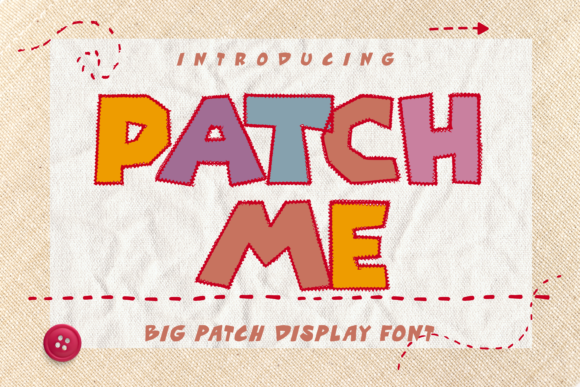
Step into a world of visual delight with Patch Me Font, a captivating display font that breathes life into your creative projects. Crafted by the ingenious Rasa, Patch Me is not just a font; it's an explosion of joy, a splash of color, and a dash of whimsy that transforms your designs into captivating masterpieces.
In a world saturated with ordinary fonts, Patch Me Font emerges as a beacon of originality, a font that dances off the page with its playful charm. Its meticulously crafted characters exude a sense of fun and lightheartedness, making them the perfect choice for designs that demand a touch of whimsy.
Immerse yourself in the versatility of Patch Me Font, a font that effortlessly adapts to a myriad of creative endeavors. Whether you're conjuring cartoon-inspired designs, crafting enchanting children's games, or seeking the perfect font for eye-catching quotes and titles, Patch Me Font rises to the occasion with unwavering grace.
Unleash your imagination and let Patch Me Font ignite your creativity. Its captivating curves and playful strokes add a touch of magic to brand names, book covers, and posters, transforming them into visual feasts that captivate and inspire.
With Patch Me Font, the possibilities are boundless. Its joyful spirit and boundless versatility make it the perfect font for designers seeking to infuse their work with a sense of pure delight. Embrace the magic of Patch Me Font and watch your creations come alive with a vibrancy that speaks to the heart.